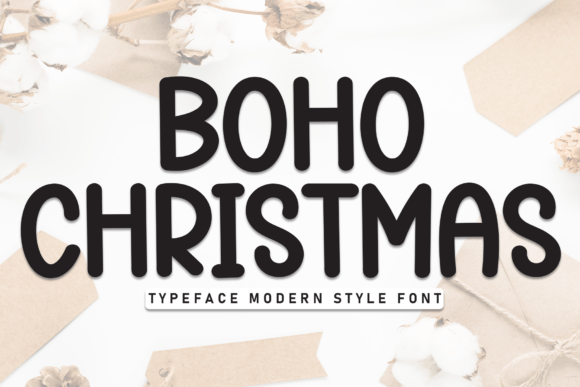
Unwrapping the Magic of Boho Christmas Font
It’s the most wonderful time of the year, and as designers, we’re often on the hunt for that perfect font to make our holiday projects sparkle. I still remember the year I spent hours scouring font libraries for the ideal script to adorn my client’s wedding invitations, only to stumble upon a hidden gem that stole the show. That font was playful, whimsical, and effortlessly charming – much like the Boho Christmas Font. In this article, we’ll dive into the delightful world of this handwritten display font and explore its capabilities.
As I began working with Boho Christmas Font, I was immediately smitten. Here are a few things that make this font shine:
- ✨ Whimsical charm: This font exudes a sense of playfulness, making it perfect for holiday projects, wedding invitations, and greeting cards.
- ✅ Readability: Despite its whimsical nature, Boho Christmas Font remains surprisingly readable, even at smaller sizes.
- 💕 Versatility: With its unique blend of elegance and playfulness, this font can be used for a wide range of design projects.
Of course, no font is perfect, and Boho Christmas Font has a few minor quirks:
- 🤔 Limited use of OpenType features: While the font does offer some basic OpenType features, it could benefit from more advanced features like ligatures and stylistic alternates.
- ⚠️ Occasional kerning issues: As with any font, some manual kerning may be required to achieve optimal results, especially when using larger font sizes.
The Story Behind Boho Christmas Font
Boho Christmas Font was designed with the intention of capturing the essence of a whimsical, bohemian Christmas. The designer aimed to create a font that would evoke feelings of warmth, joy, and playfulness – perfect for holiday projects and special occasions. With its unique blend of elegance and charm, Boho Christmas Font has become a popular choice among designers and crafters.
| Font Name | Boho Christmas Font |
| What type of projects is Boho Christmas Font best suited for? | Boho Christmas Font is perfect for holiday projects, wedding invitations, greeting cards, and any design project that requires a touch of whimsy and playfulness. |
| Is Boho Christmas Font suitable for body text? | While Boho Christmas Font is primarily designed for display purposes, it can be used for short paragraphs of body text. However, for longer blocks of text, a more traditional font may be more suitable. |
| Does Boho Christmas Font offer any OpenType features? | Yes, Boho Christmas Font offers some basic OpenType features, including ligatures and stylistic alternates. |